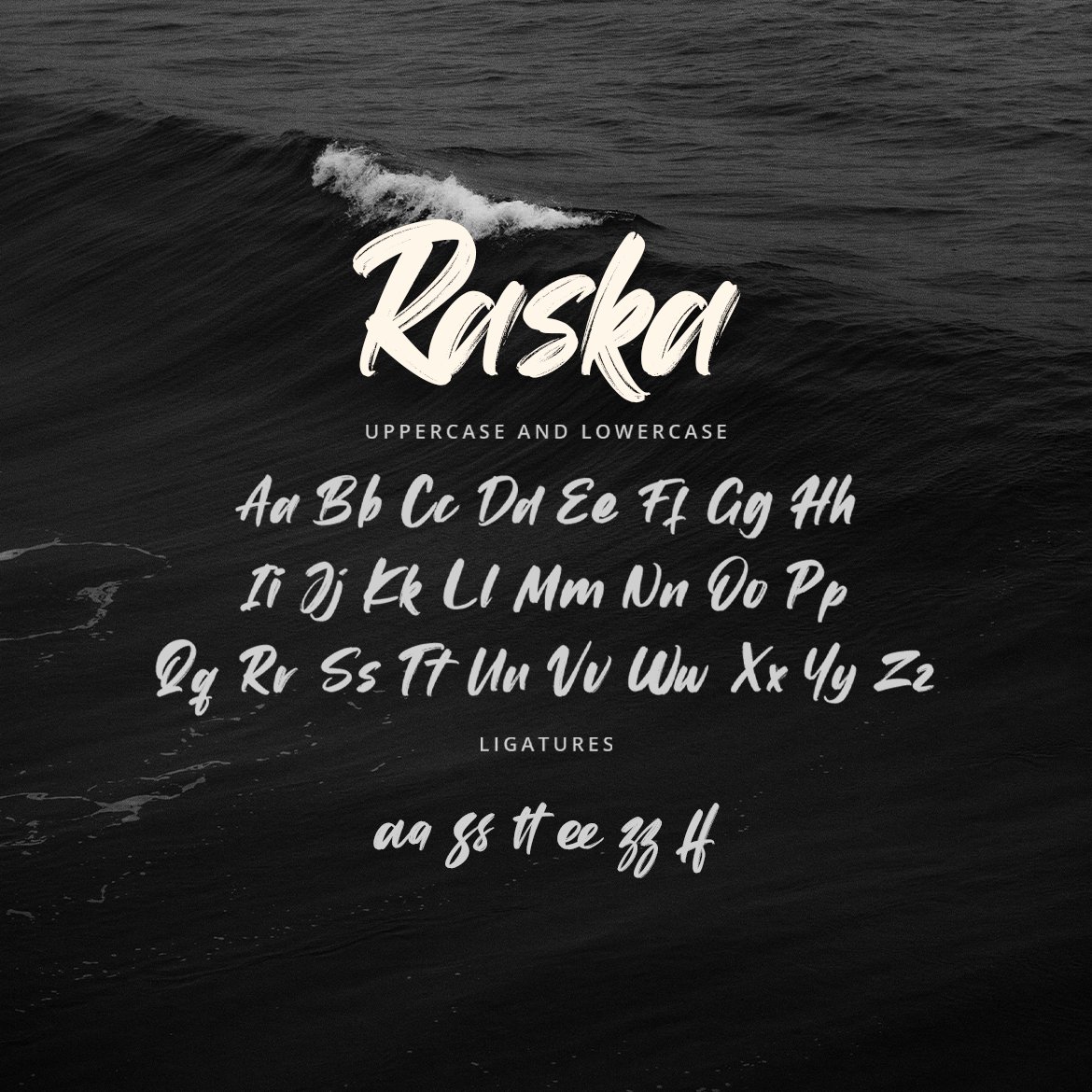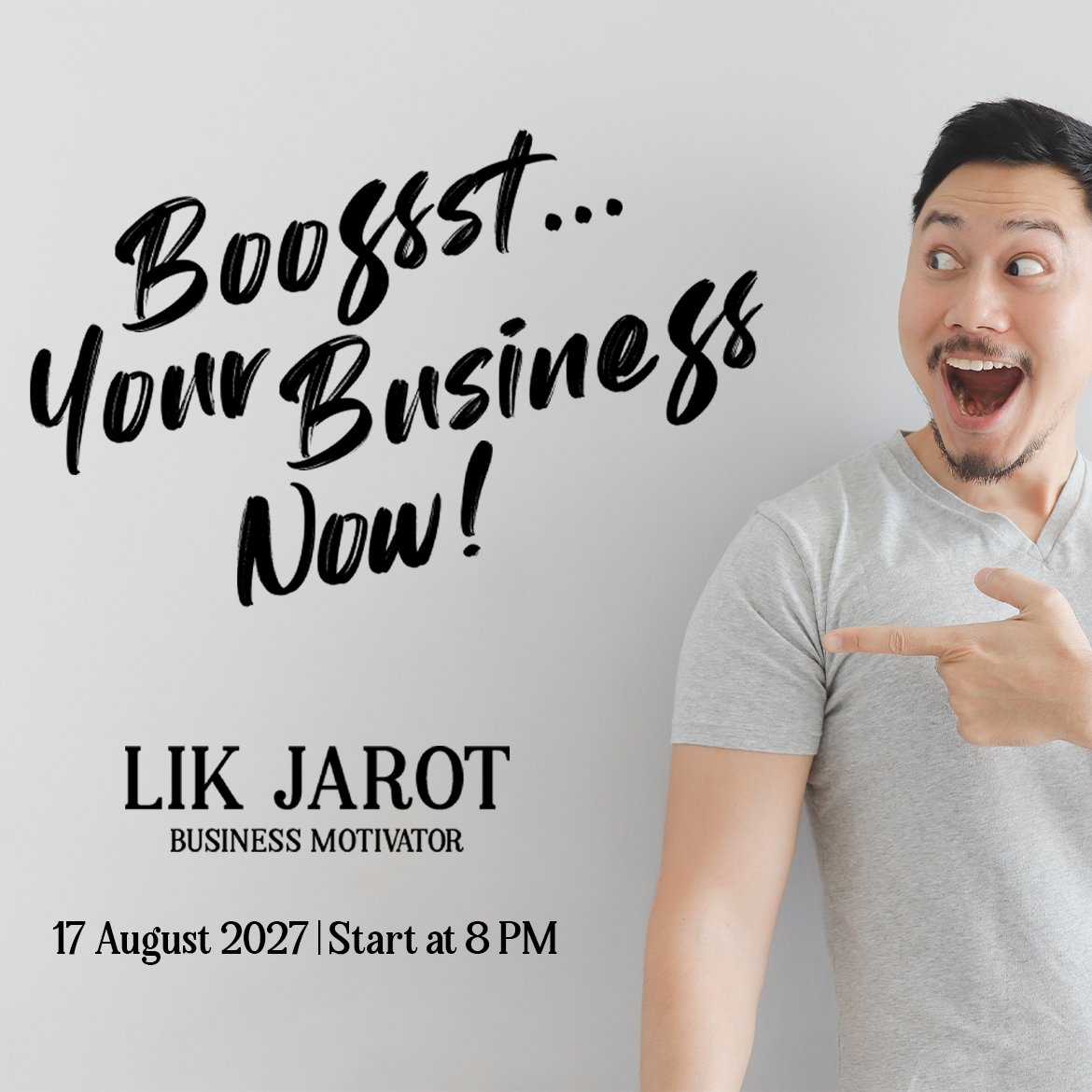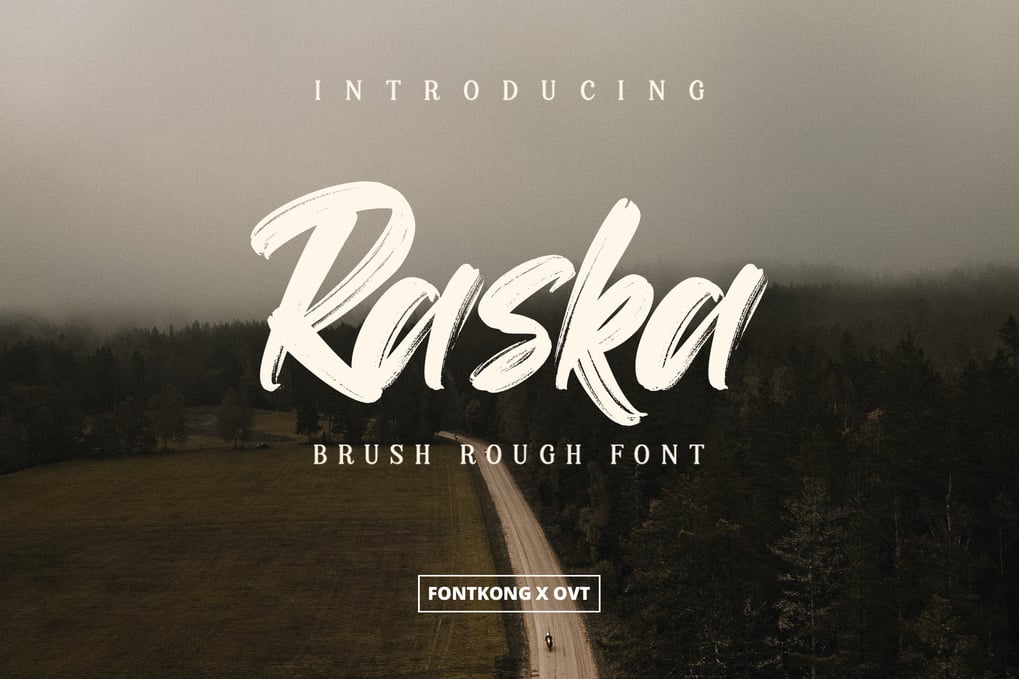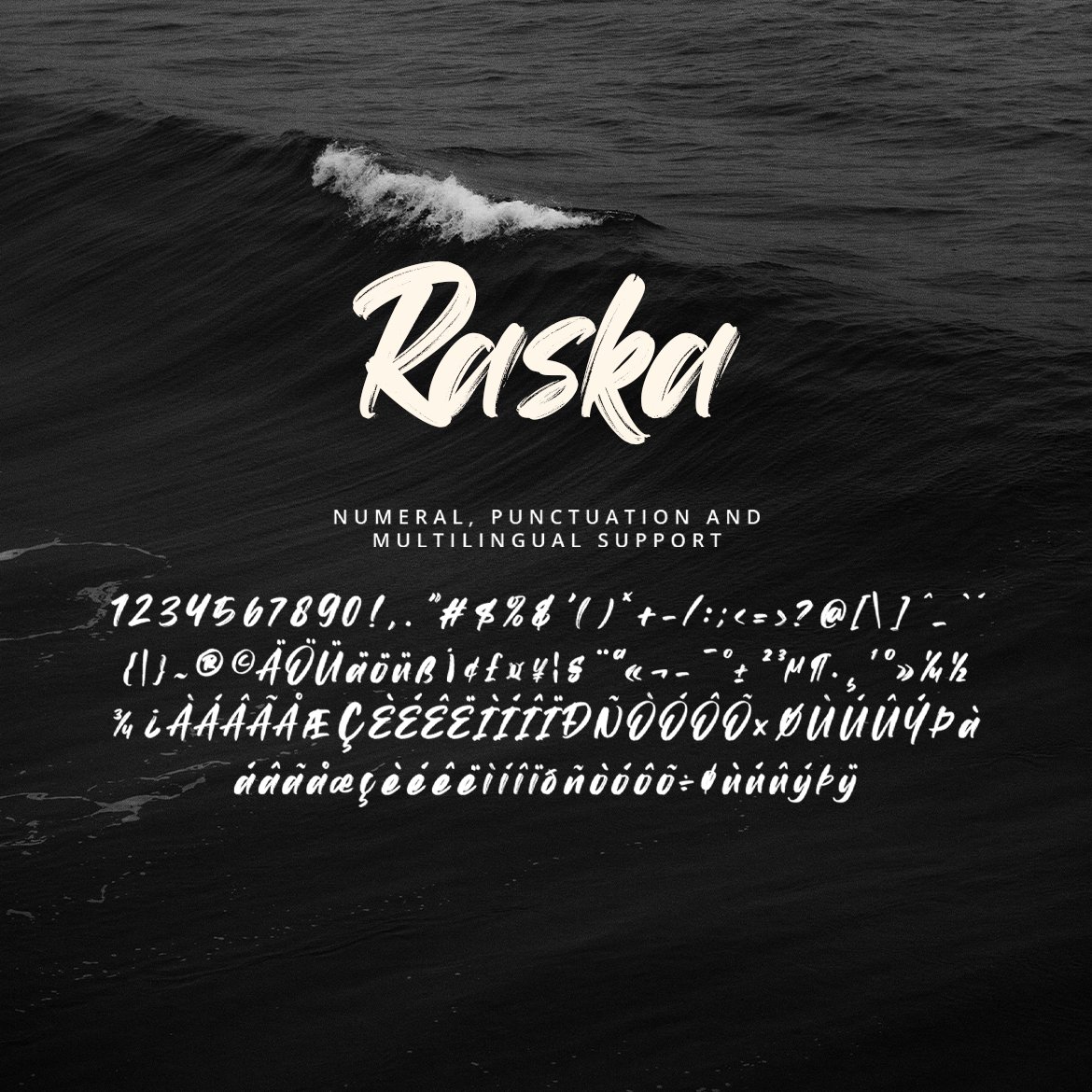
Raska – Brush Rough Font
“Raska” features bold and dynamic brush strokes, creating characters that are both powerful and expressive. Each letter showcases a unique texture and edge, giving your designs a hand-crafted, organic look that stands out.